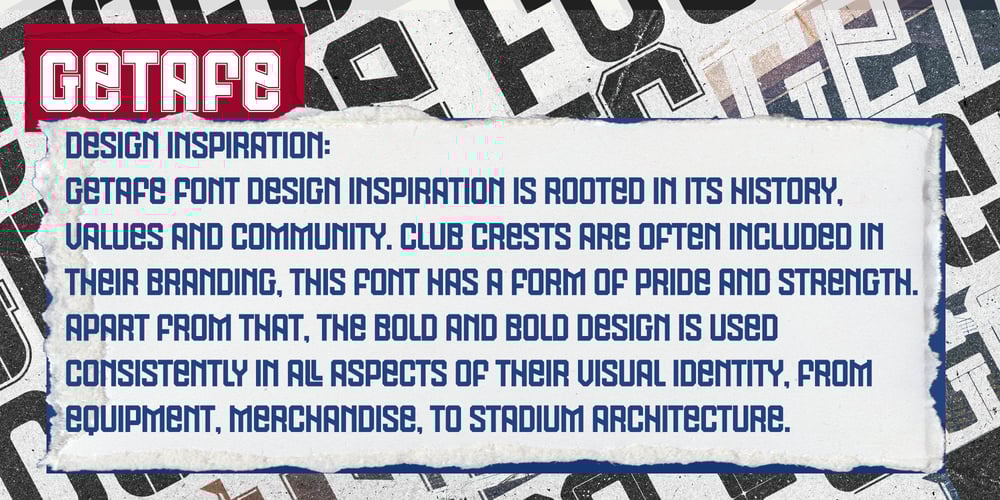
Getafe Font Family was designed by Muhammad Afif Ersya and published by Trequartista Studio. Getafe contains 22 styles and family package options. Getafe font design inspiration is rooted in its history, values and community. Club crests are often included in their branding, this font has a form of pride and strength. Apart from that, the bold and bold design is used consistently in all aspects of their visual identity, from equipment, merchandise, to stadium architecture.Getafe is a fearless athletic font family with 11 creative styles for added flexibility and variation. It’s perfect for sports logos, branding, posters, apparel design with it’s bold and confident appearance. The uppercase characters comes with different renders to add authenticity and a more natural worn look.